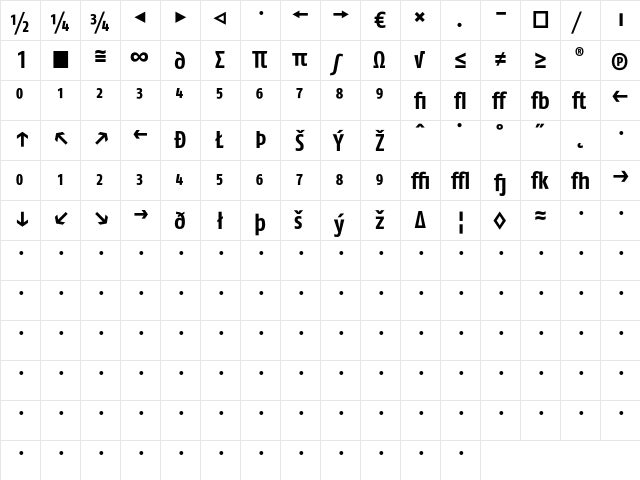
FagoCo BoldExp
Design Context for FagoCo Typeface
FagoCo is a composed and adaptable typeface that performs quietly and consistently across a wide range of design contexts. Its bold stroke weight gives it real presence on the page.
Pro Tip: Use FagoCo in both headline and body roles to test its range before committing to a single application.